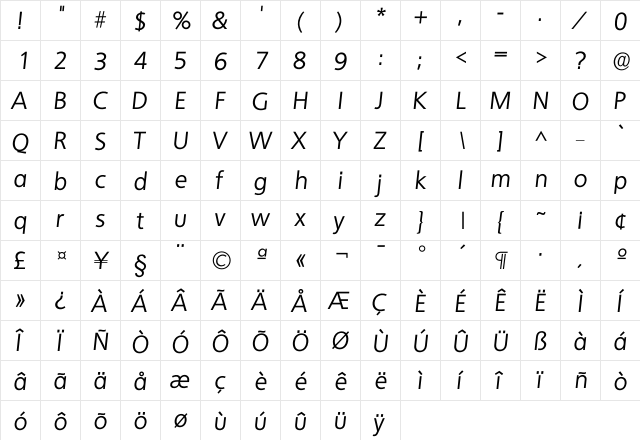
Iquebec Regular
Design Context for Iquebec Typeface
Iquebec takes a measured approach to typography — its balanced proportions and neutral character make it a reliable workhorse for both digital and print work.